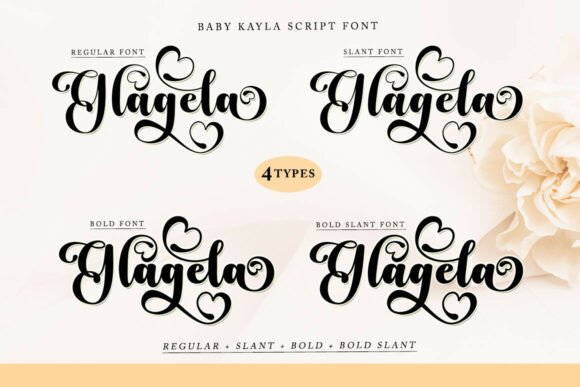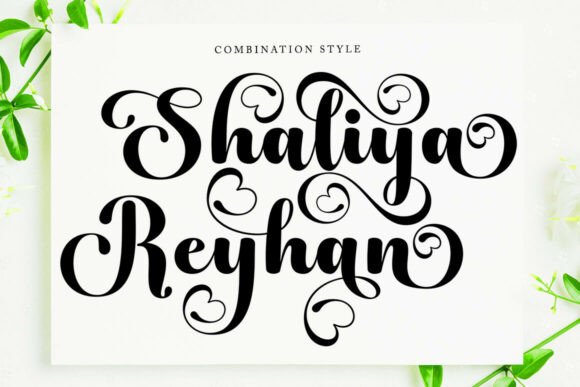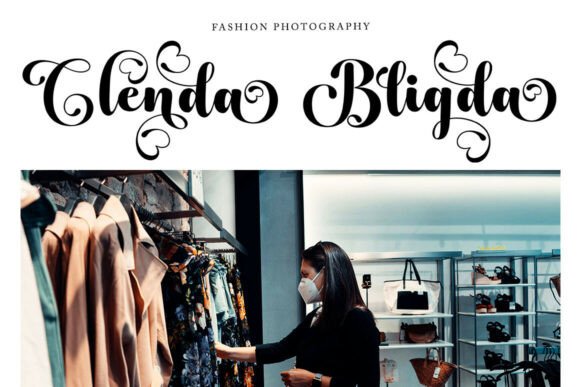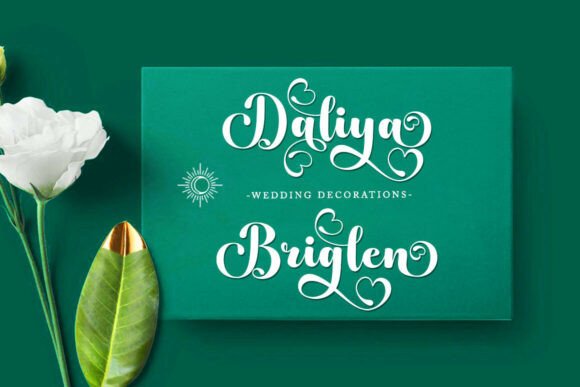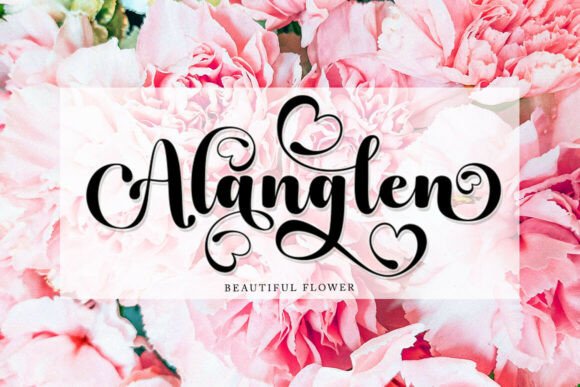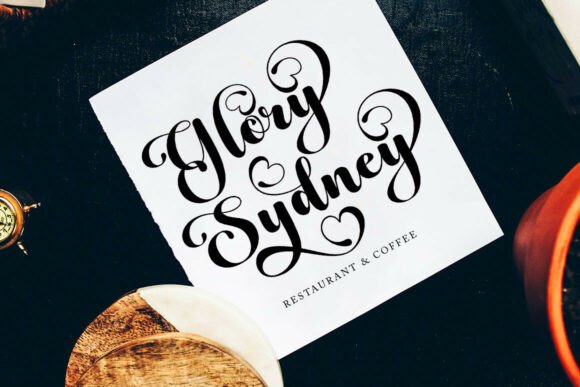
Discover the Sweet Charm of Baby Kayla Font
Have you ever found yourself lost in the world of typography, searching for the perfect font to convey your emotions and express your creativity? It’s a moment we’ve all experienced – flipping through font libraries, scrolling through design boards, and pinning our hopes on the perfect match. For those seeking a touch of romance and whimsy, we’ve got just the thing: Baby Kayla Font.
This lovely calligraphy script is designed to spread love and warmth, making it the ultimate choice for wedding invitations, newborn announcements, and boutique branding. With its elegant strokes, charming heart-shaped flourishes, and loops, Baby Kayla Font offers incredible versatility for diverse design needs. Whether you’re a seasoned designer or a creative enthusiast, this font is sure to capture your heart and inspire your next design project.
Baby Kayla Font Key Features
- Unique Characteristics: The Baby Kayla font is a modern, elegant script font with a soft and delicate touch, perfect for creating a warm and inviting atmosphere. It features connected letters, making it ideal for titles, headings, and short texts.
- Font Style: Script, Calligraphy
Baby Kayla Font Review
Overall, I have mixed feelings about the Baby Kayla Font. It’s a lovely, hand-drawn script font that’s perfect for creating a soft, whimsical look.
- ✨ Whimsical feel: The Baby Kayla Font has a lovely, hand-drawn quality that makes it perfect for creating a playful, whimsical look.
- ✨ Versatile: This font can be used for a variety of projects, from children’s book illustrations to wedding invitations.
- ✨ Readable: Despite its cursive nature, the Baby Kayla Font is surprisingly easy to read.
- ⚠️ Limited language support: The Baby Kayla Font only supports a limited number of languages, which may be a problem for designers who need to create content in multiple languages.
- ⚠️ Limited character set: The font’s character set is limited, which may cause problems if you need to use special characters or symbols.
- ⚠️ Not ideal for large text: The Baby Kayla Font is best used for smaller text sizes, as it can become difficult to read at larger sizes.
Overall, I think the Baby Kayla Font is a lovely addition to any designer’s toolkit. While it may have some limitations, its unique feel and versatility make it a great choice for a variety of projects.
The Baby Kayla Font is perfect for creating a whimsical and playful look. To get the most out of it, use it in conjunction with pastel colors and floral patterns.
The Baby Kayla Font is commonly used in:
- Baby shower invitations and decorations
- Children’s birthday party invitations and decorations
- Women’s and children’s clothing and accessories
Alternatives to Baby Kayla Font
The Great Vibes Font is a beautiful, elegant script font that is perfect for creating a sense of sophistication and style. It’s ideal for use in wedding invitations, branding, and other high-end designs. Compared to Baby Kayla Font, Great Vibes Font has a more refined and polished look, making it suitable for more formal occasions.
Carolyna Pro Font is a modern, stylish script font that is perfect for creating a sense of elegance and refinement. It’s ideal for use in fashion, beauty, and luxury brands. Compared to Baby Kayla Font, Carolyna Pro Font has a more contemporary and sleek look, making it suitable for modern and trendy designs.
Alex Brush Font is a beautiful, handwritten script font that is perfect for creating a sense of warmth and personality. It’s ideal for use in invitations, greeting cards, and other personal designs. Compared to Baby Kayla Font, Alex Brush Font has a more relaxed and casual look, making it suitable for everyday designs.
Yes, the Baby Kayla font is fully editable in software that supports OpenType features, such as Adobe Illustrator and Photoshop. You can access advanced features like ligatures, swashes, and stylistic sets to create unique and customized designs.